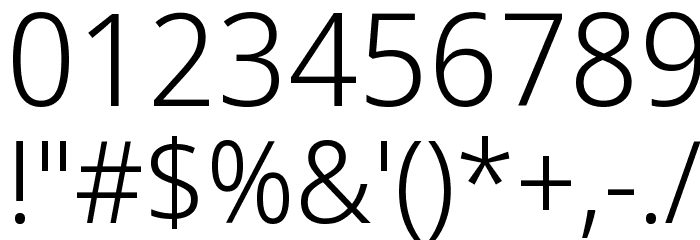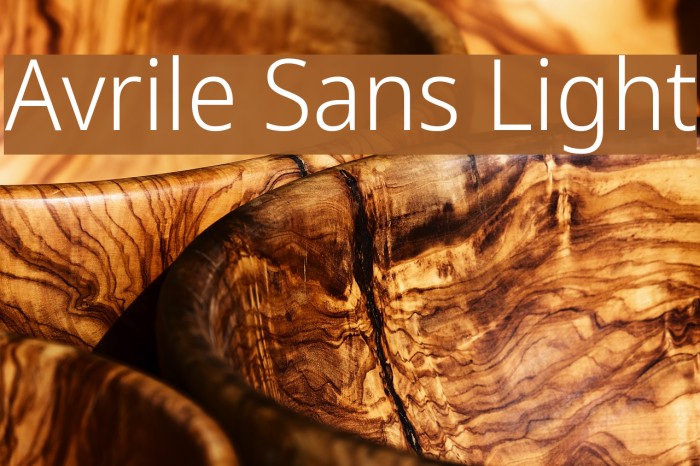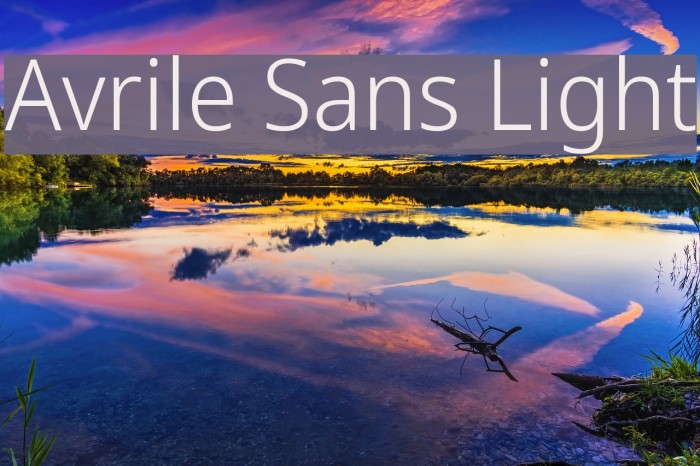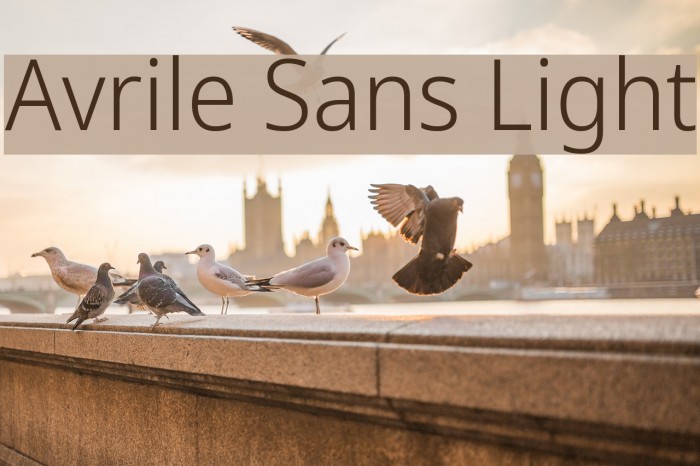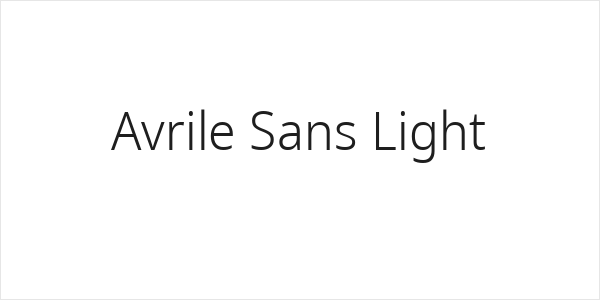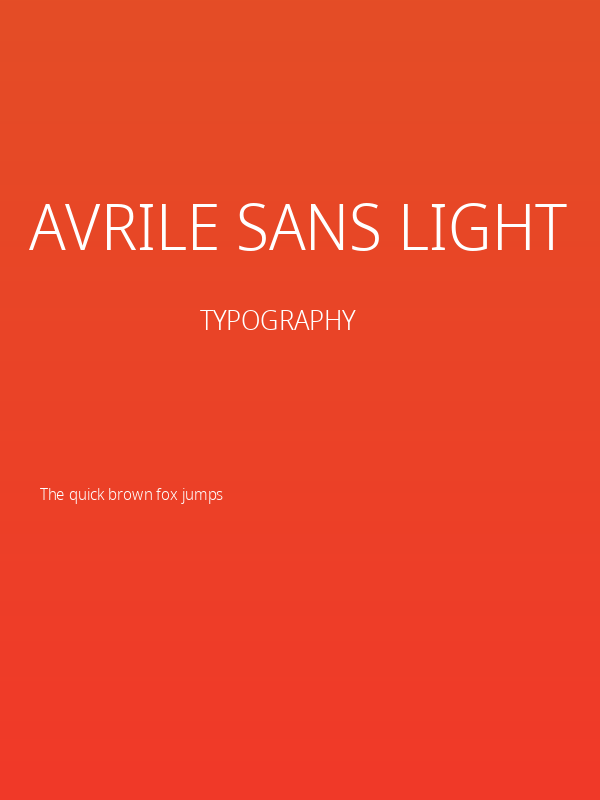
Avrile Sans Light Font
Avrile Sans Light Description
This font features a clean and modern sans-serif design, characterized by its light weight and elegant simplicity. The characters are evenly spaced, providing a balanced and harmonious appearance. The uppercase letters are tall and slightly condensed, while the lowercase letters maintain a consistent height, contributing to a uniform look. The numerals are clear and legible, making them suitable for both digital and print applications. Special characters are well-defined, adding versatility to the font's use. Overall, this font exudes a contemporary and professional feel, ideal for a variety of design projects.